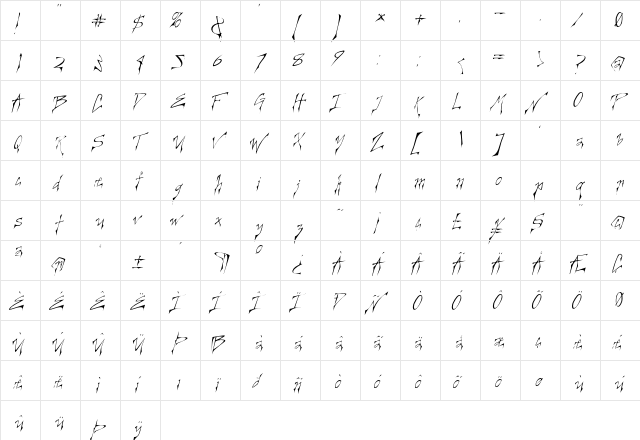
Creepygirl LightOblique
Design Context for Creepygirl Typeface
Creepygirl leans into the macabre with letterforms designed to disturb and intrigue in equal measure. The slanted form adds forward momentum and visual energy.
Ideal for Halloween projects, horror film titles, haunted house signage, and dark editorial design.
Font Pairing: Pair with a clean neutral sans-serif for body copy to let Creepygirl's character lead without overwhelming the composition.
Pro Tip: Creepygirl works best as a headline or focal element. Pair it against plain, neutral body text to amplify the contrast.